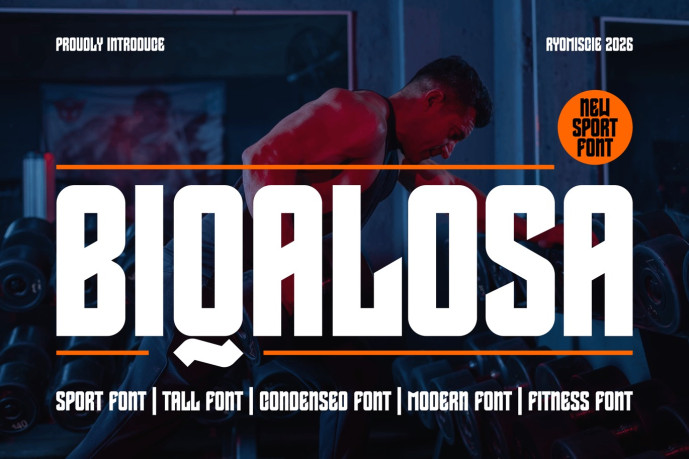
Biqalosa – Modern Sport Font
Introducing our new product Biqalosa – Modern Sport Font
Biqalosa – Modern Sport Font is a bold and authentic display font. The font is suitable for any branding project like logo, esport, and many more. outstanding in a wide range of contexts.